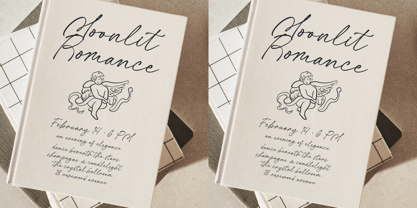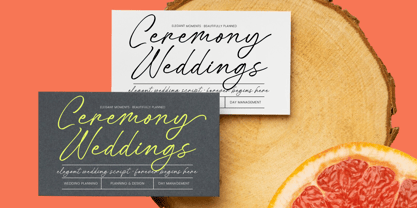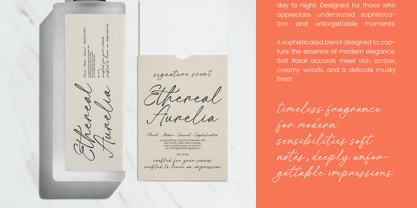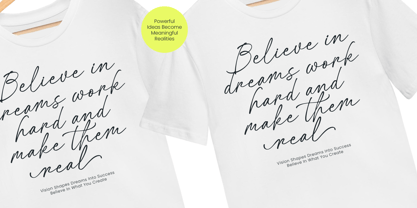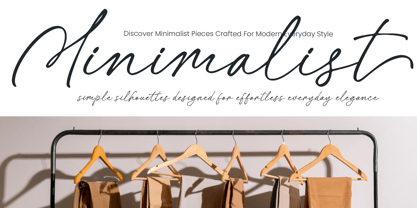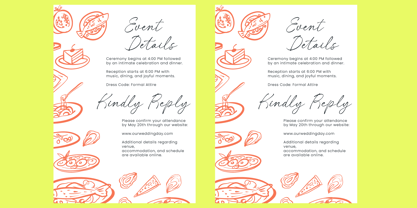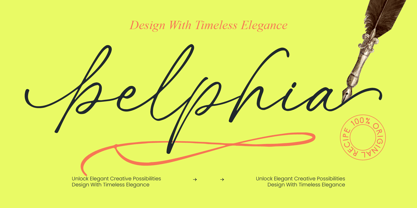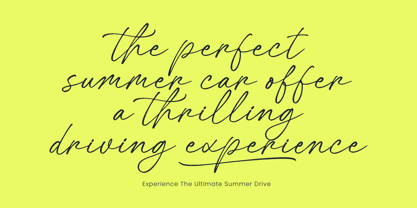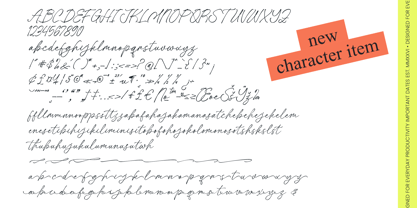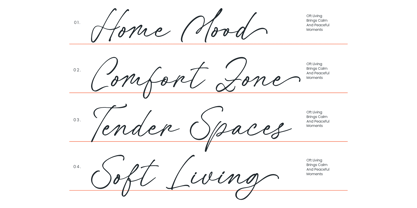
Belphia
La familia tipográfica Belphia fue diseñada por Heru Utama Putra y publicada por Letterena Studios. Belphia contiene 2 estilos y opciones de paquete familiar. Más información sobre esta familia
Belphia - Stylish Signature Font
Elevate your creative projects with the sophisticated charm of Belphia - Stylish Signature Font, a typeface designed to exude effortless elegance and high-end appeal. This monoline script captures the essence of authentic handwriting, offering a rhythmic flow that adds a personal, handcrafted touch to any composition. Its graceful curves and refined strokes make it a standout choice for designers looking to infuse their work with a sense of timeless luxury and modern flair.